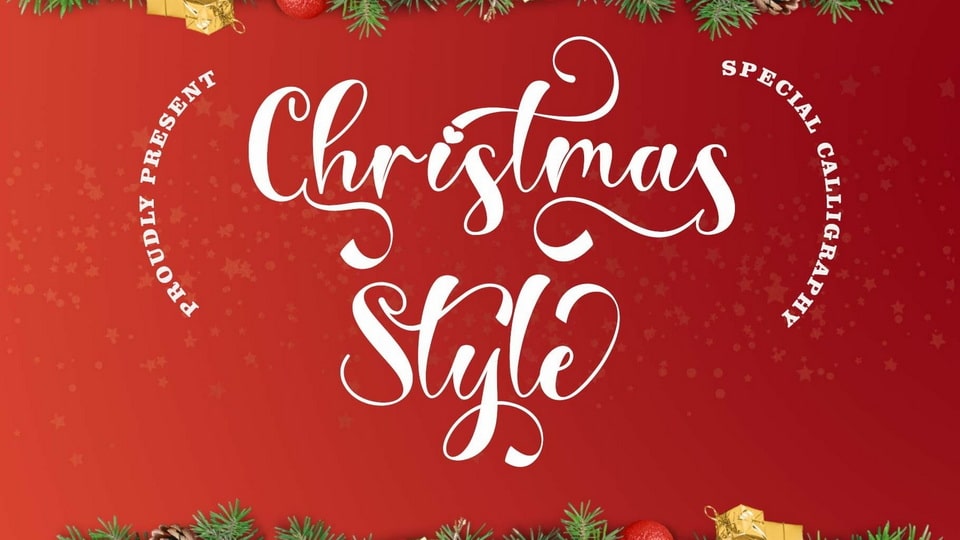
Download Christmas Style font, a calligraphy typeface created for Christmas. This font is very beautiful and elegant, very suitable for Christmas greetings, invitations, weddings, and more.